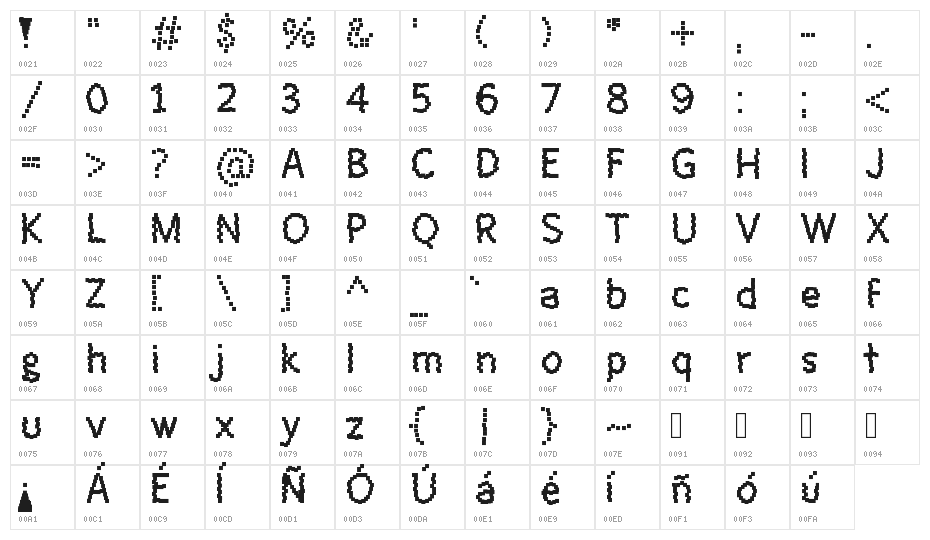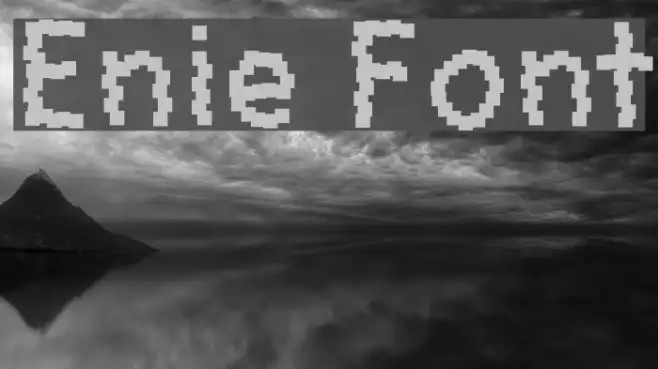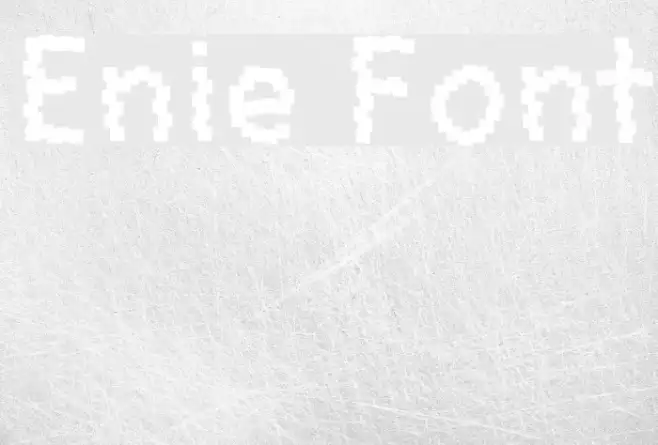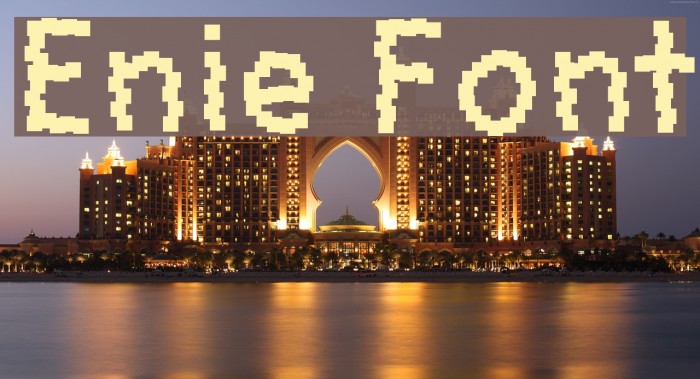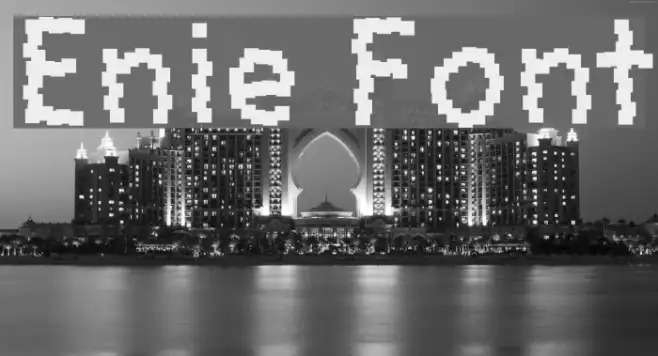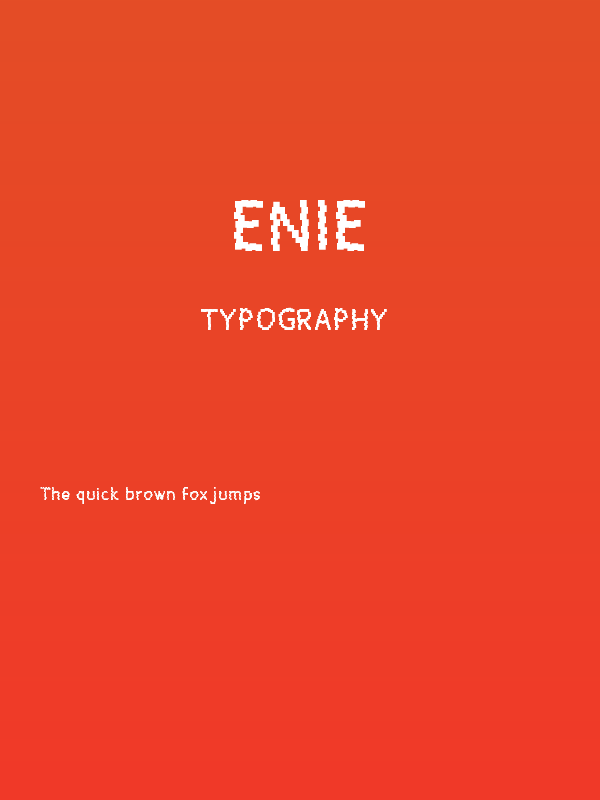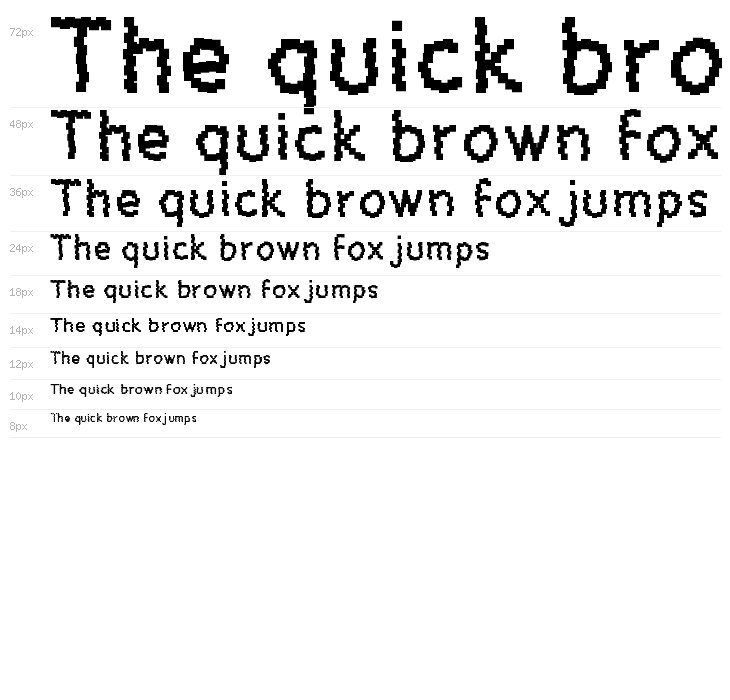
Enie Font
Enie Description
This font features a distinctive pixelated style, reminiscent of early digital or video game typography. Each character is composed of small square blocks, giving it a retro, digital appearance. The uppercase and lowercase letters maintain consistent proportions, while the numerals and special characters follow the same pixelated design. This font's unique texture and style make it stand out, offering a nostalgic feel that is both playful and eye-catching. It is ideal for projects that aim to evoke a sense of nostalgia or a digital theme, such as retro gaming designs or tech-related branding.
| Overall Style | Retro, Digital, Nostalgic |
| Use Case | Logos, Headlines, Posters, Digital Art |
| Proposed Projects | Perfect for retro gaming designs, tech branding, digital art projects, and nostalgic-themed marketing materials. |